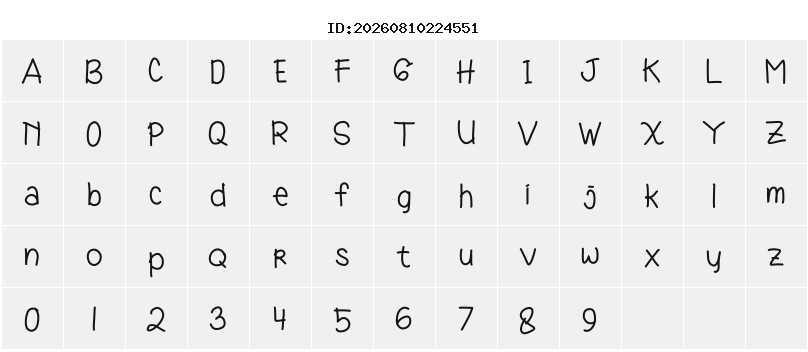
• Font Name: renanenna
• Full Font Name: renanenna
About renanenna.ttf
renanenna.ttf is a modern, elegant sans-serif font designed for ultimate readability and visual harmony. Perfect for branding, headlines, web design, and print materials.